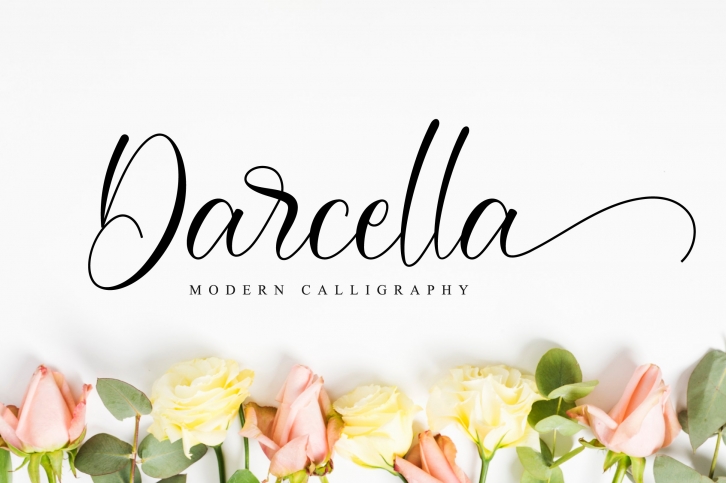
Darcella Script is a beautiful font that was designed by Nissa Studio. It's a great choice for designers and creatives who need such a font. It was released on April 20, 2020 and the file size is 20.39 MB. Darcella Script may give a more youthful, expressive and casual look to your project. It is a very beautiful, refined, elegant, and high-quality font.